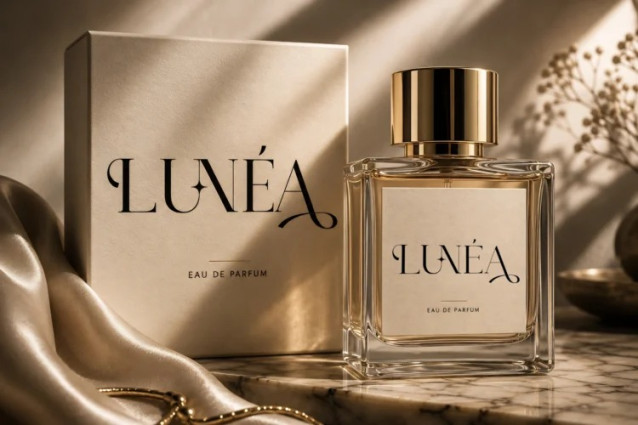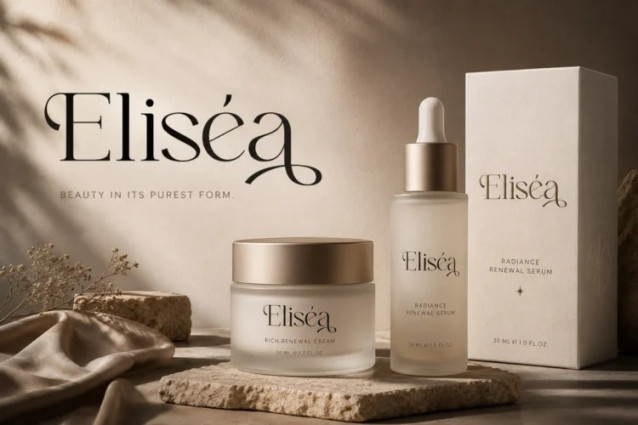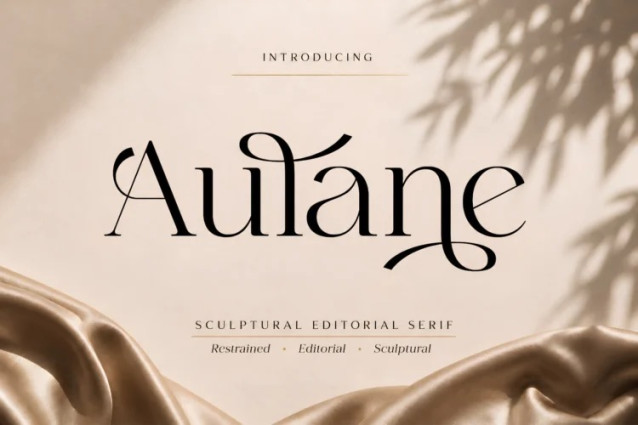
Aulane Font
Aulane Font is a sculptural editorial serif designed for identities that need presence without excess.Built with refined contrast, composed letterforms, expressive alternates, and graceful ligatures, Aulane gives designers a visual voice for brands that feel considered, editorial, and commercially refined. It works especially well in visual identities where typography needs to carry atmosphere, shape recognition, and quiet distinction without becoming overly decorative.Use the standard characters for clean and restrained compositions, or explore the alternates, ligatures, and swashes to create distinctive wordmarks, editorial titles, packaging details, and campaign-led typography.